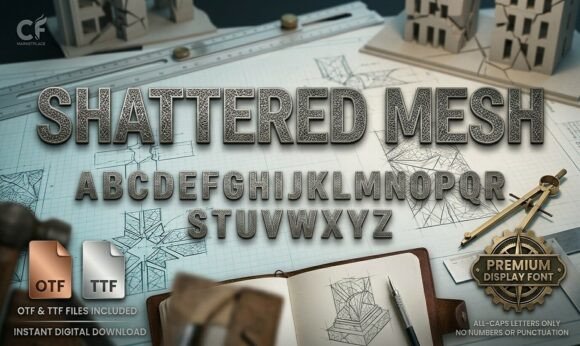
Introduction to Shattered Mesh Font
Forge a path of visual strength with Shattered Mesh, a premium display font designed for high-impact industrial and cinematic branding.
Perfect for fantasy RPGs, industrial sci-fi headers, and high-octane action movie posters Shattered Mesh is a specialized “All-Caps” powerhouse, engineered specifically for heroic titles and heavy-duty wordmarks.
Key Features of Shattered Mesh Font
Why Choose Shattered Mesh Font?